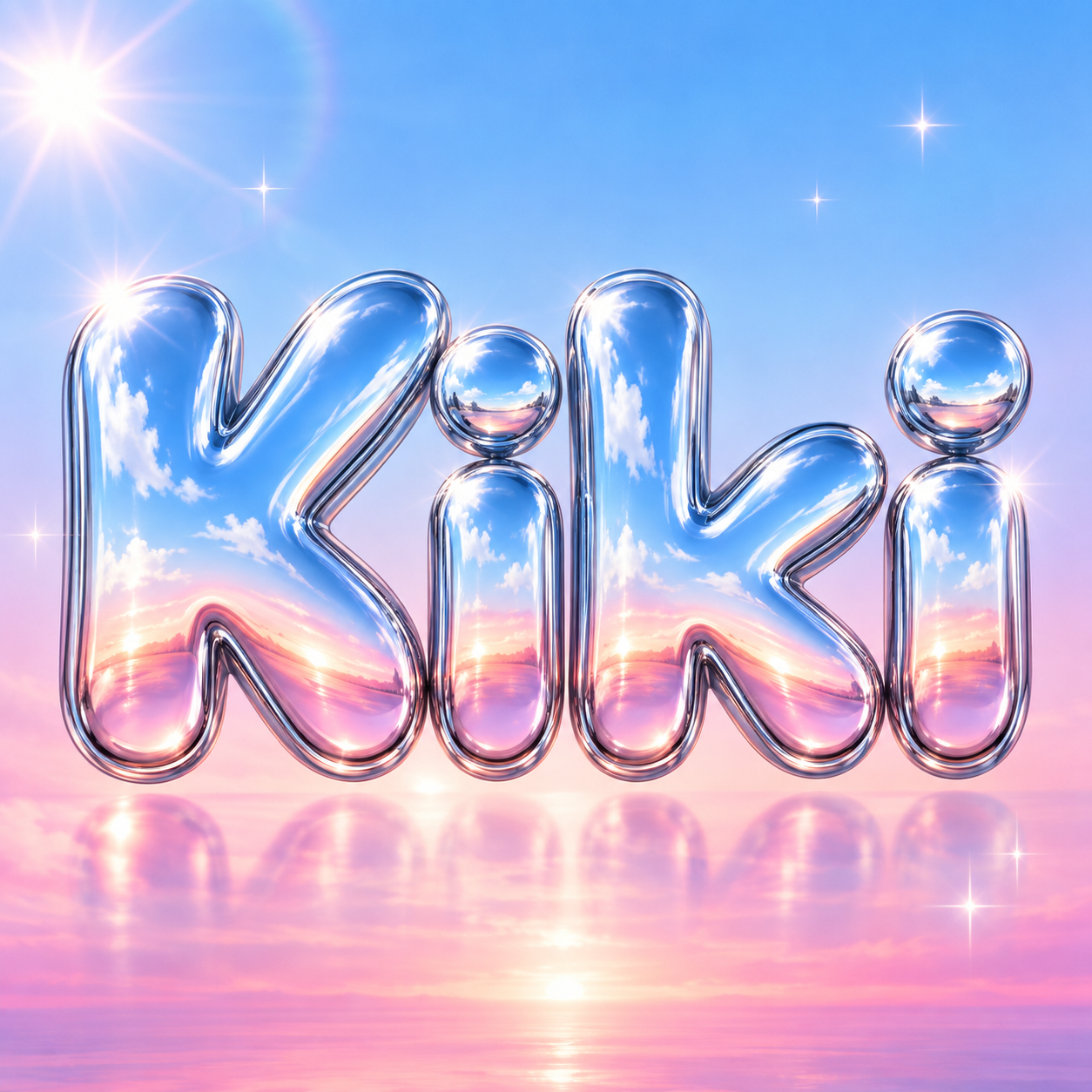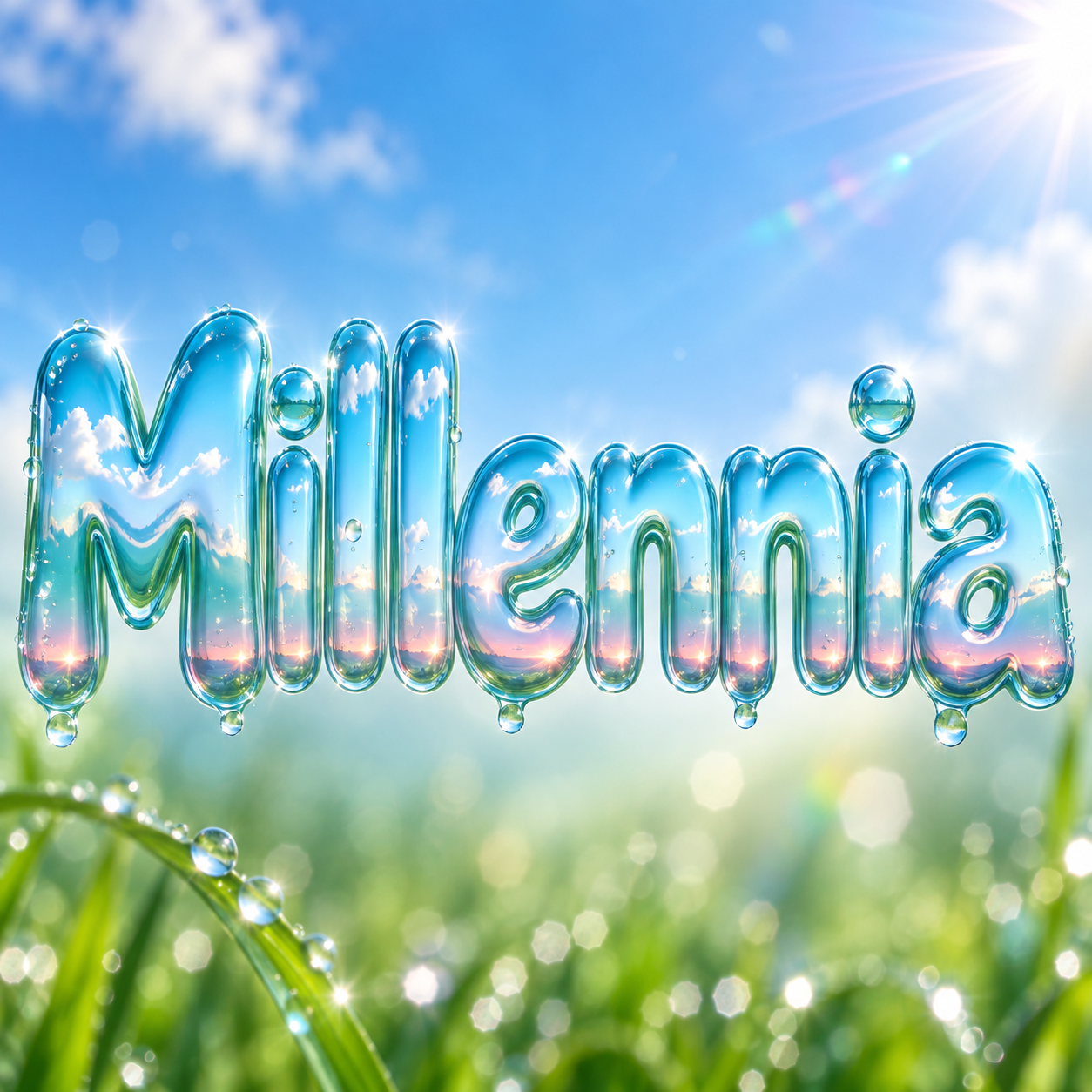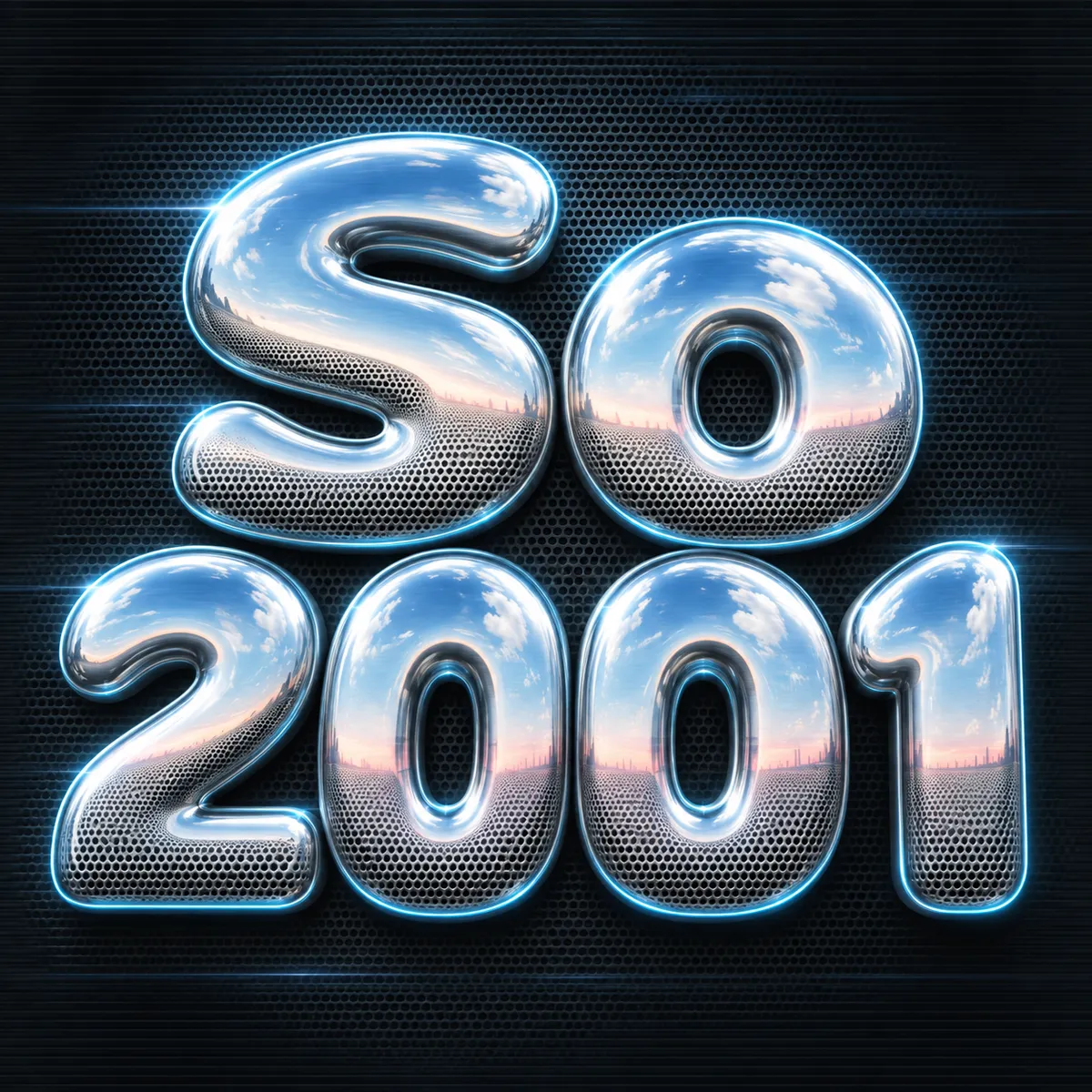
Millennium chrome, aqua gloss, glitter gel, and holo stickers. The year 2000 as a letterform.
inflated bubble capitals in bright mirror chrome reflecting a blue sky and pink horizon, glossy and optimistic, classic millennium logo treatment
A Y2K font is less one typeface than a moment: inflated chrome capitals on a gradient sky, the wet aqua gloss of an early-2000s desktop, glitter gel pen on a diary cover, holographic stickers on a flip phone. The Fontique Y2K font generator renders your own words in that language instead of handing you a file to install, so the letters are built for your text rather than stretched to fit it.
Five presets map the era. Chrome Bubble gives you the inflated mirror finish that defined millennium logo design, with a blue sky above and a pink horizon below. Frutiger Aero adds water droplets, lens flare, and that glassy operating-system shine. Metal Mesh goes colder and more technical, Glitter Gel covers the tween-diary corner with star sparkles, and Holo Sticker wraps the word in an iridescent die-cut border. Chrome Bubble is the one to pick for millennium chrome text, and its inflated depth is what people are after when they search for 3D 2000s text.
Four things, usually together: inflated rounded letterforms, a reflective chrome or glass surface, a blue-to-pink gradient standing in for a sky, and small star or sparkle highlights. Our presets isolate those ingredients so you can pick how far into the era you want to go.